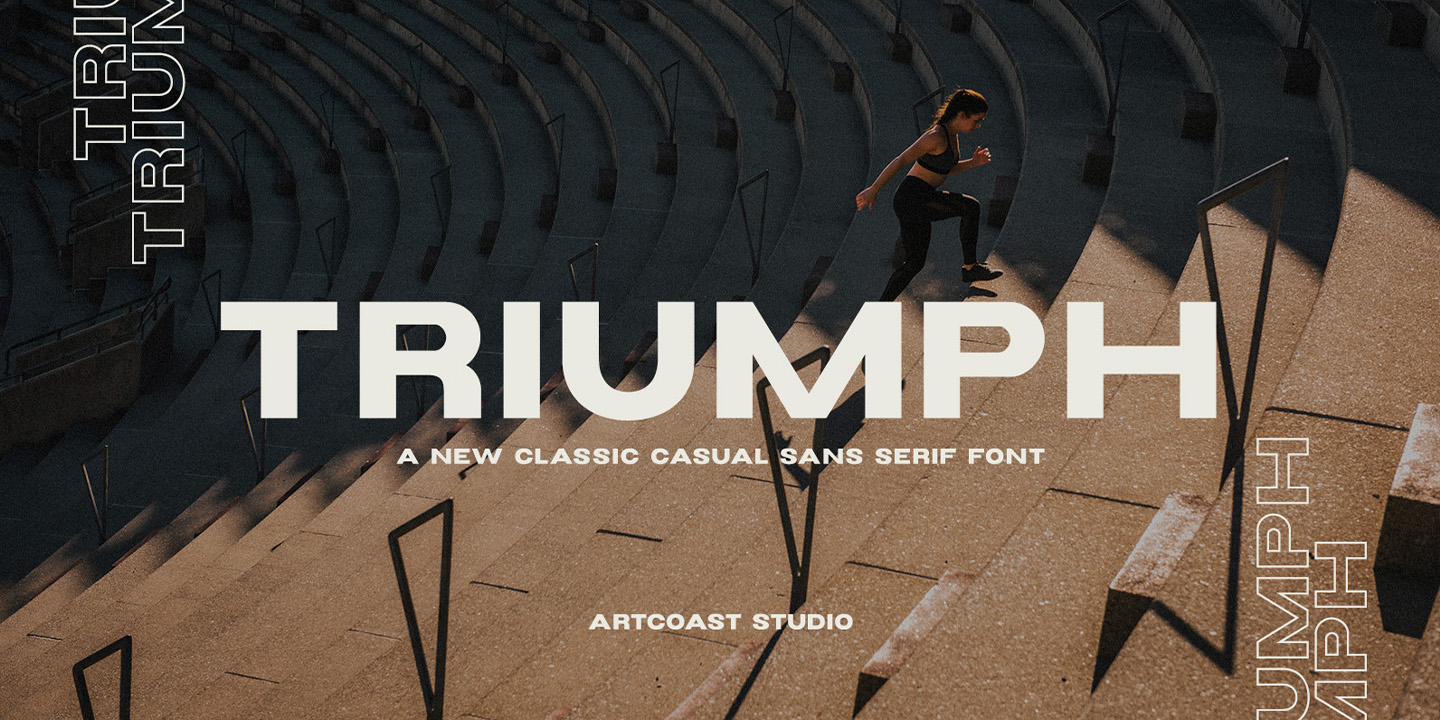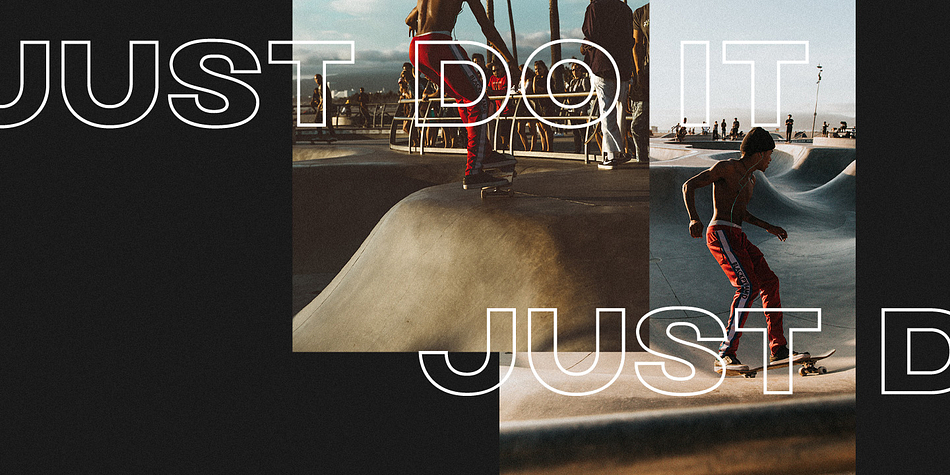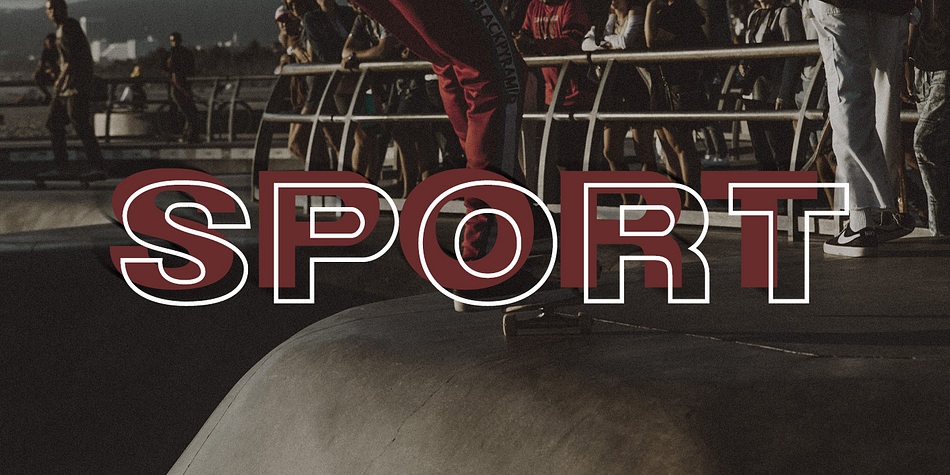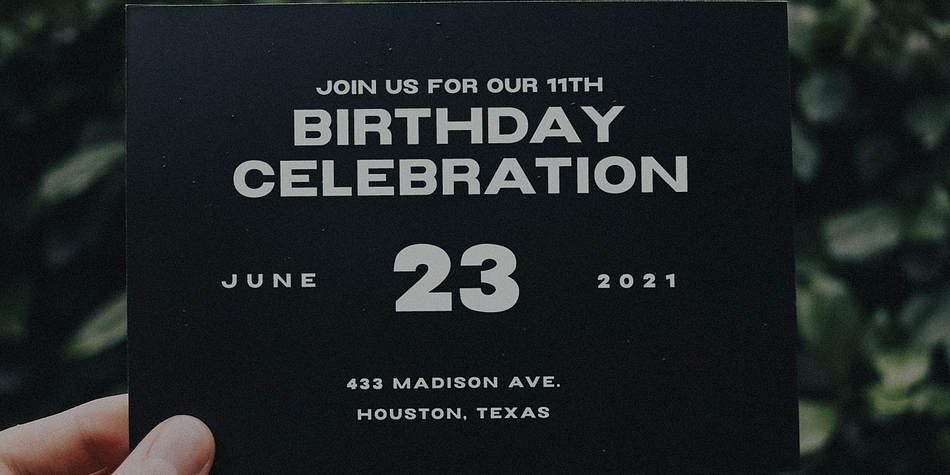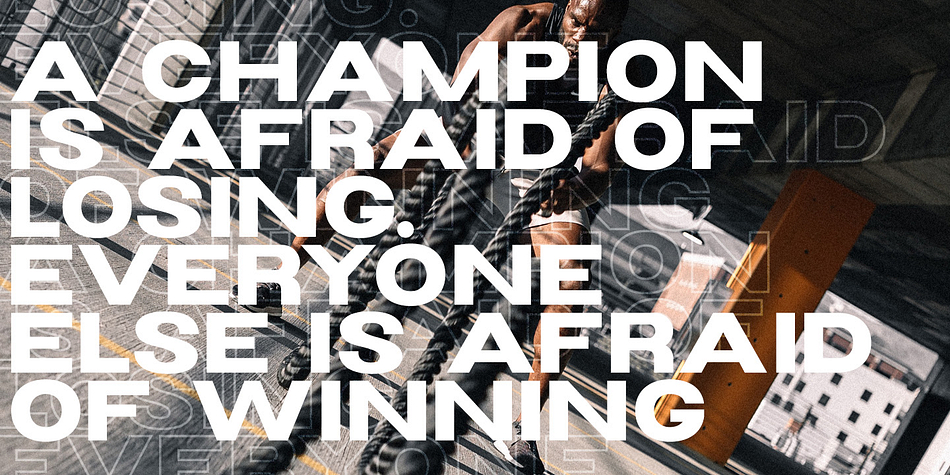
Designed by Dmitry Mashkin, SA Triumph is a sans serif font family. This typeface has two styles and was published by ArtCoast.
TRIUMPH is a new classic casual sans serif wide font. TRIUMPH WIDE FONT will perfect for many project: fashion, magazines, logo, branding, photography, invitations, wedding invitation, quotes, blog header, poster, advertisements, postcard, book, websites, etc.
- All Caps letters, numbers, punctuation